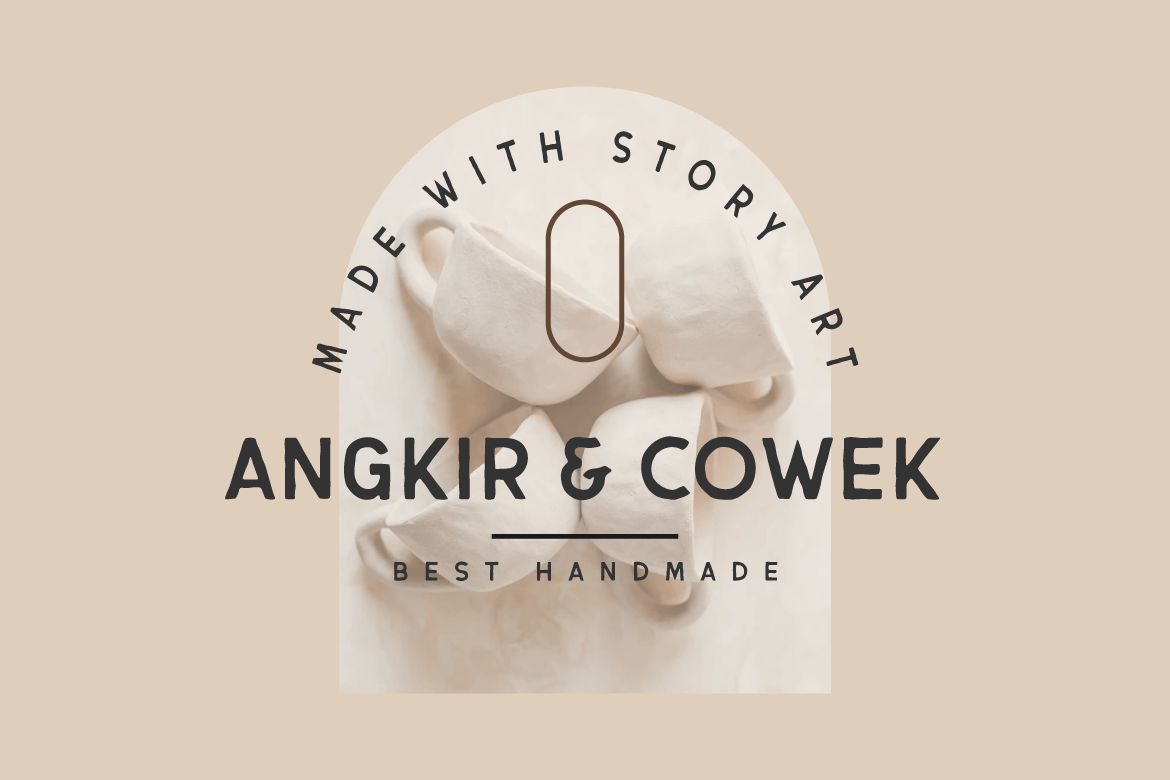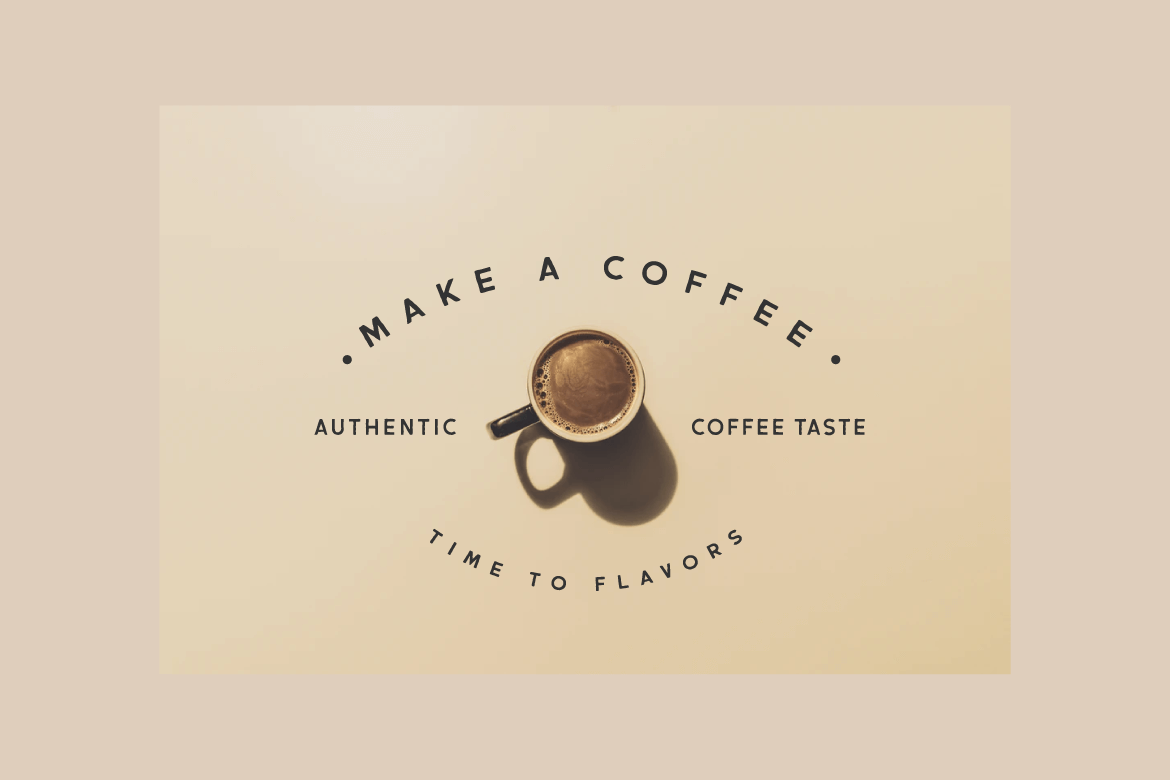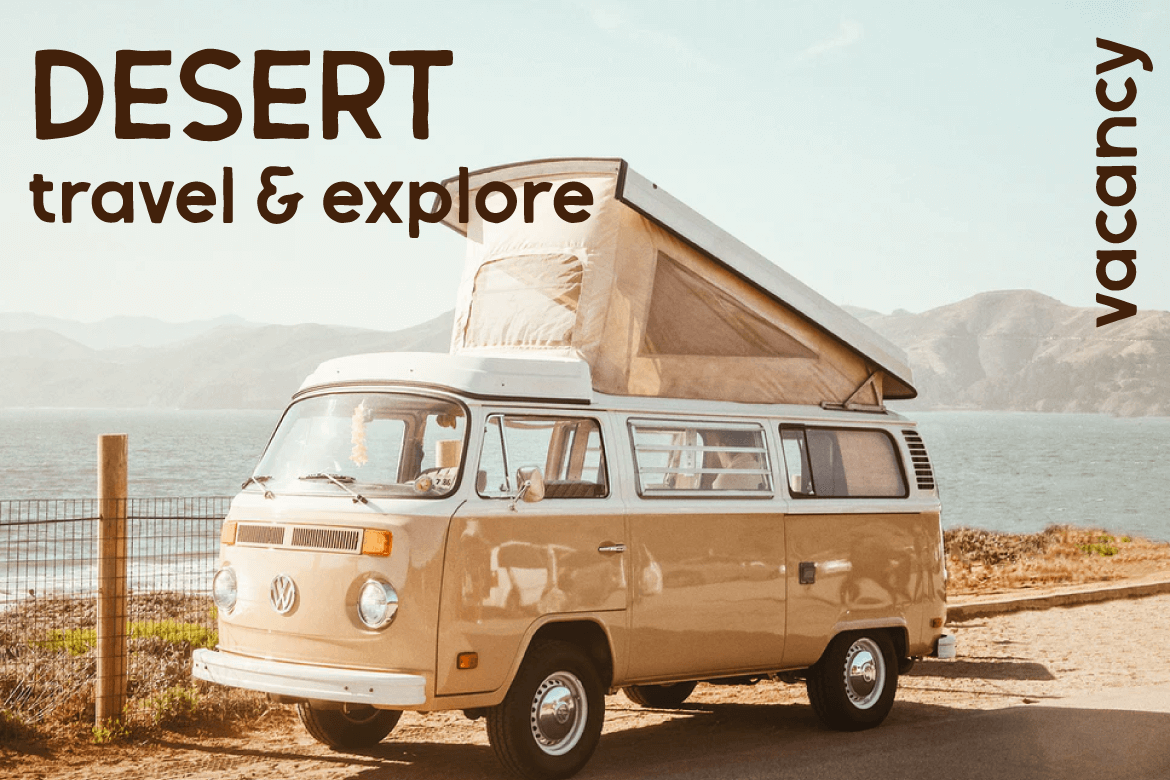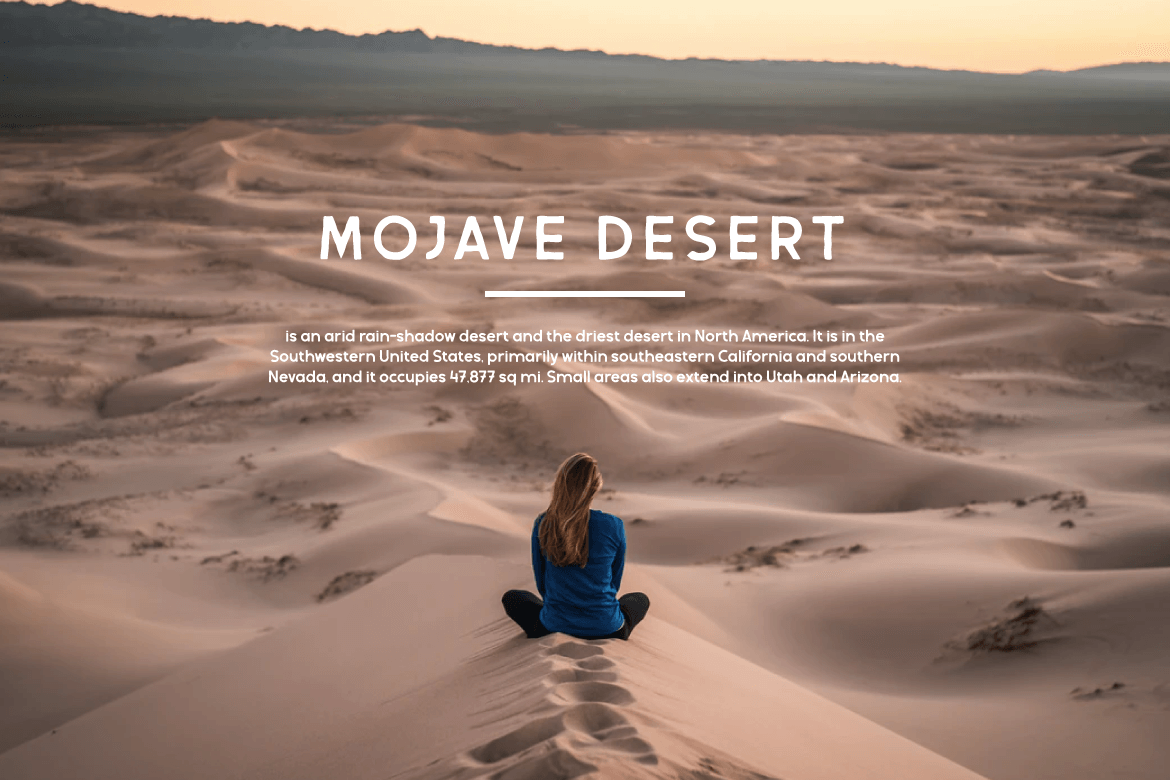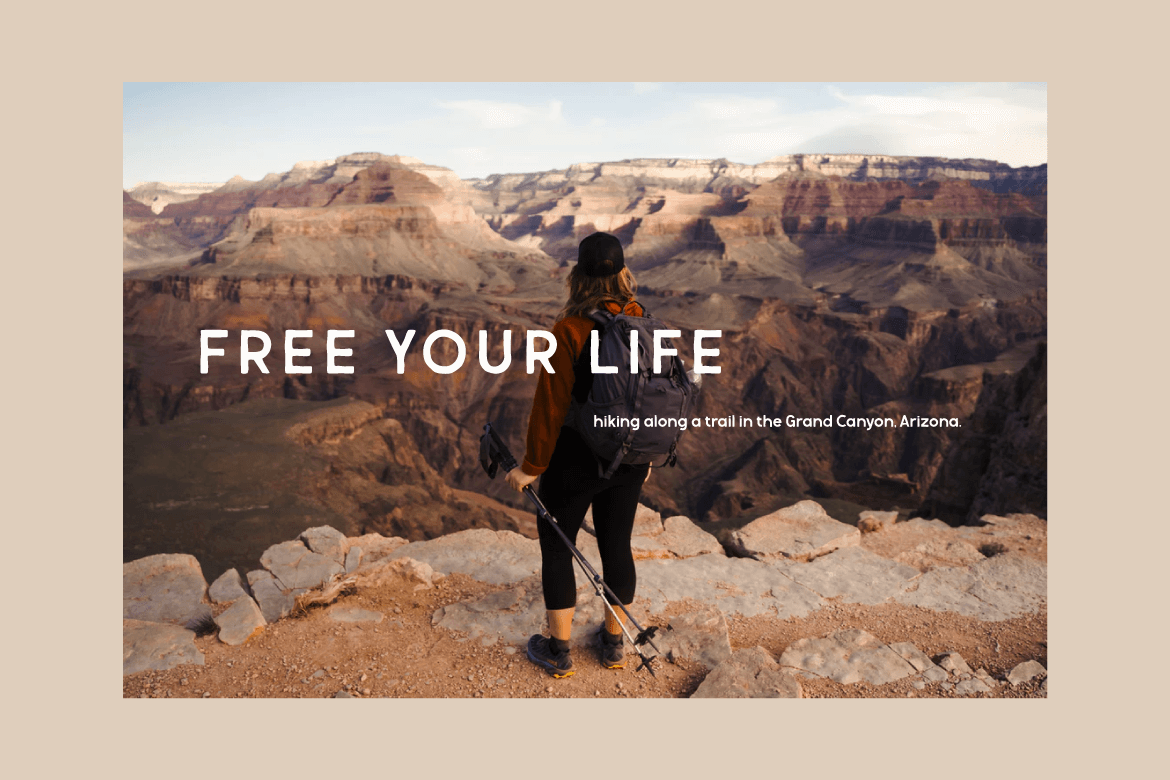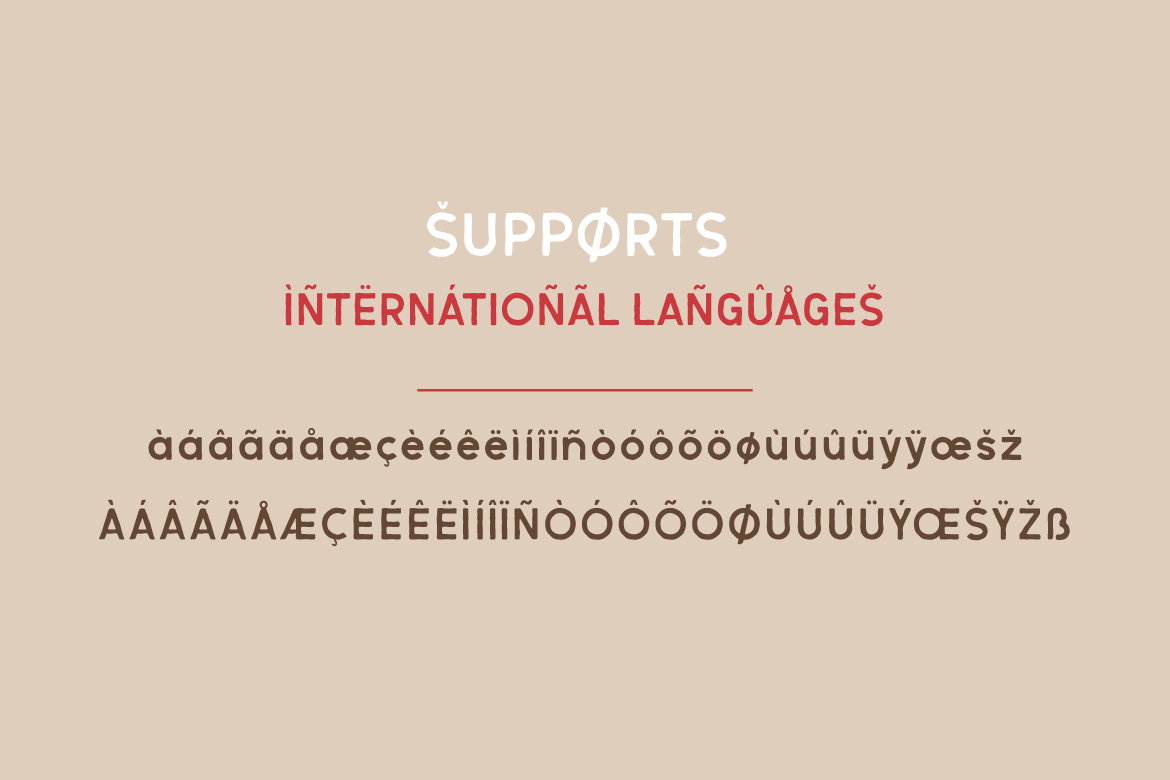
Bigores
Bigores is a san serif font that is handwritten with a relaxed, peaceful, and attractive background because it is beautiful to the eye and seems natural and at one with nature
This font is perfect for packaging, special moment events, branding, banners, posters, food and beverages, quotes, clothing, logotypes, and more.